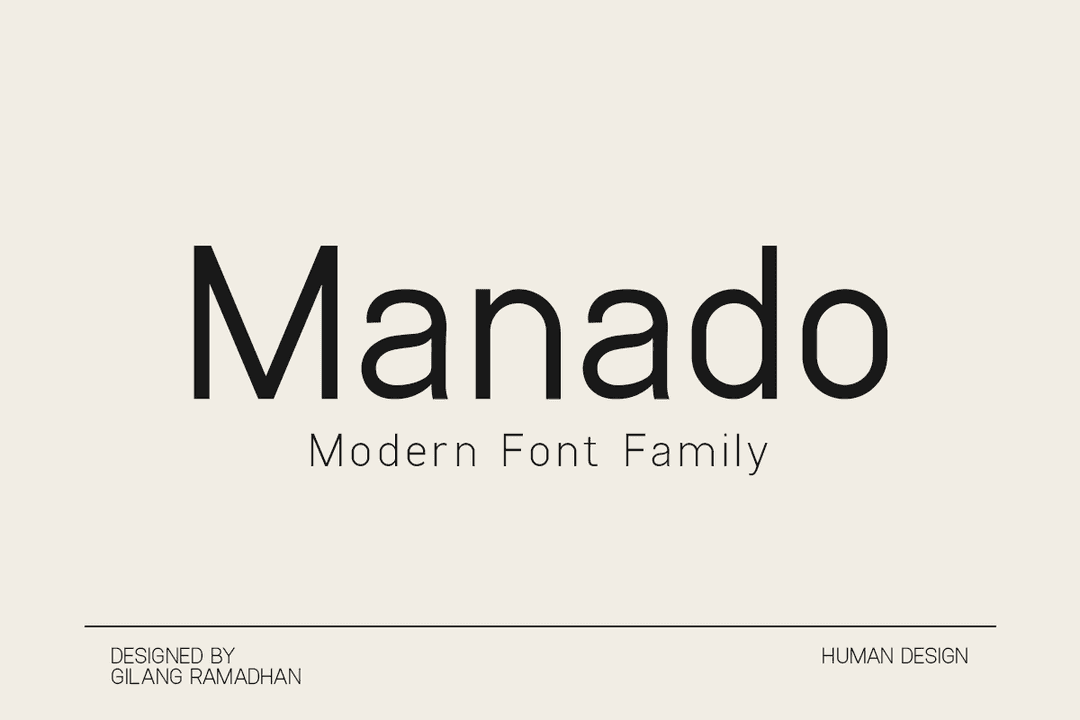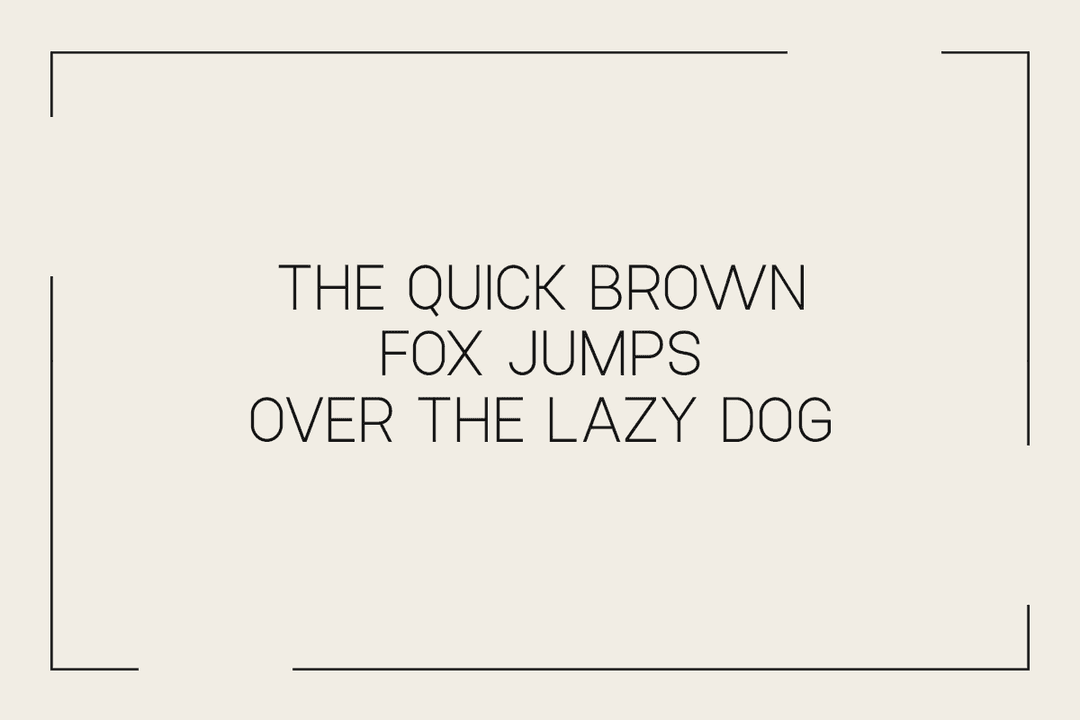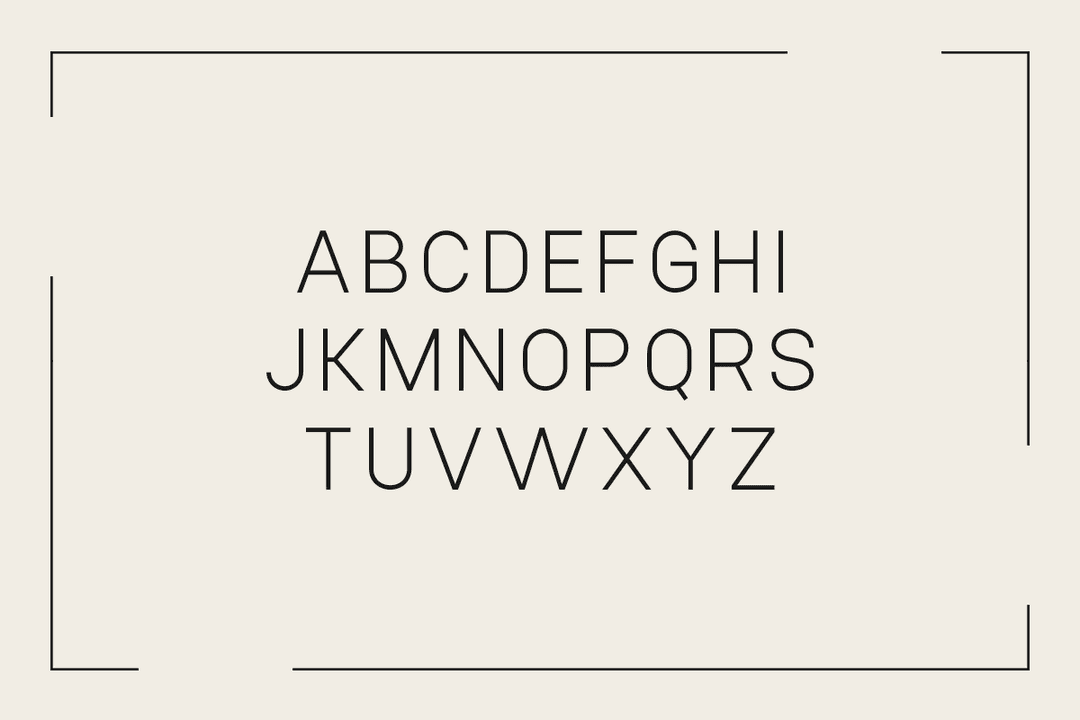
Discover Manado Font Family, part of the Sans Serif collection—a versatile and unique font perfect for adding a personal touch to your projects. Download it for free and enjoy crafting designs with style, from invitations to social media posts. This font is available exclusively for personal use, giving you the freedom to create without limits. Unlock your creativity with Manado Font Family today!
Manado is an elegant yet simple sans serif font, easily matching to an array of designs – you can use this font in your designs for creativity to see how they shine! You may be amazed by just how quickly they stand out!